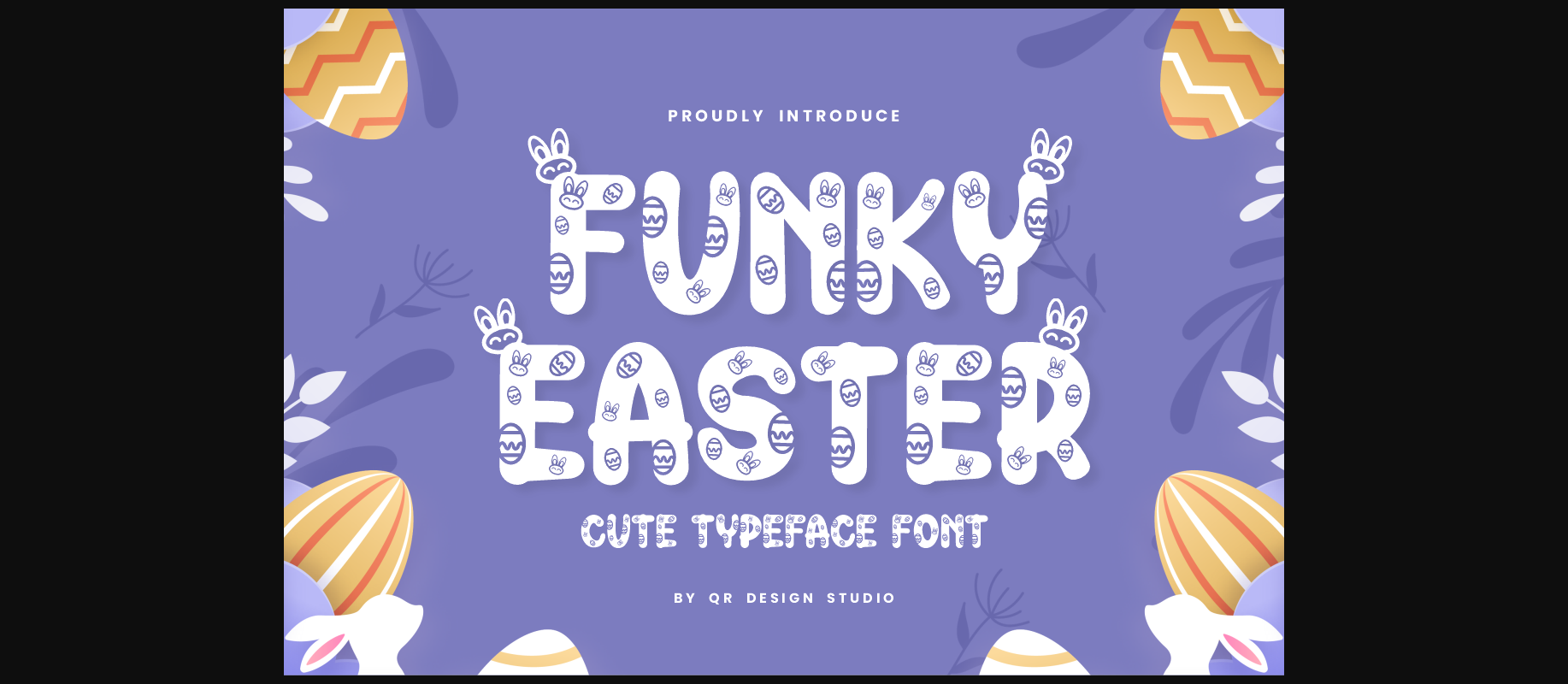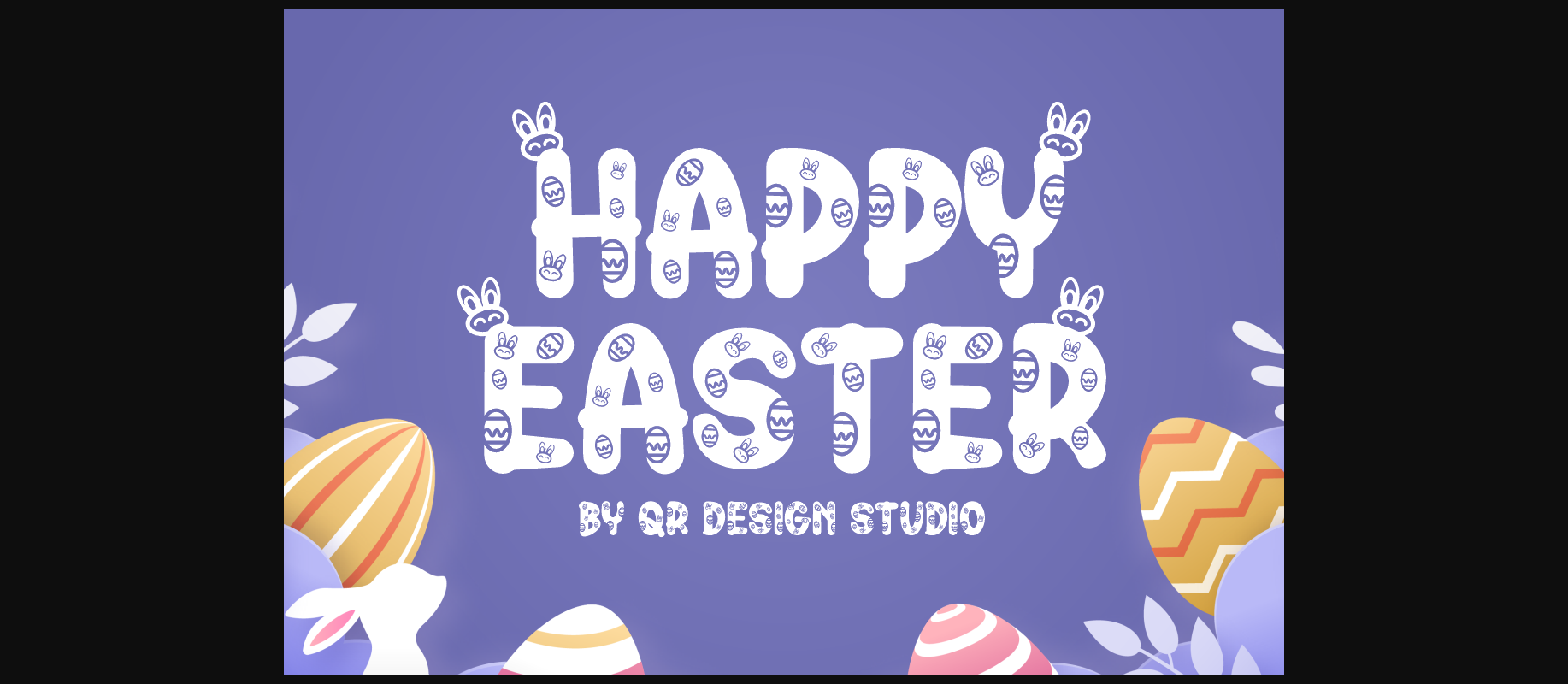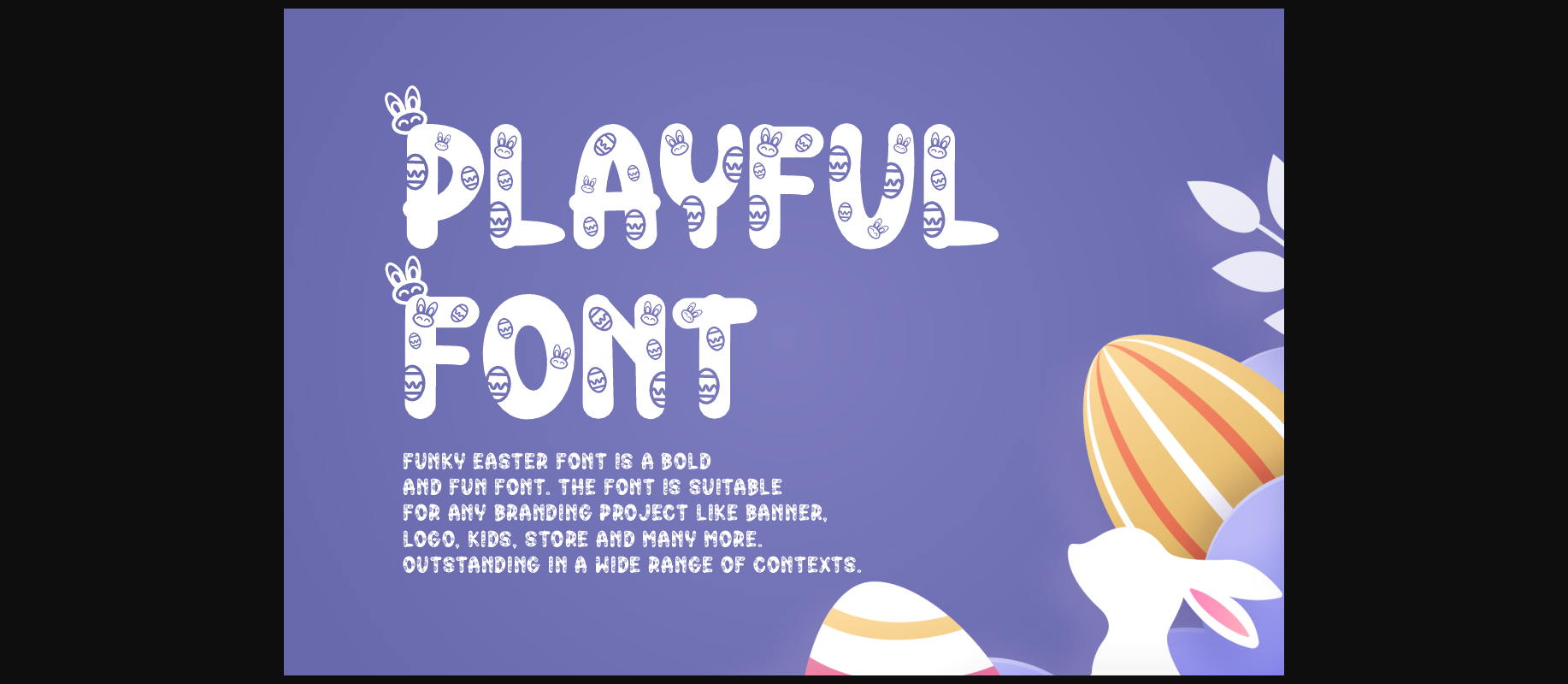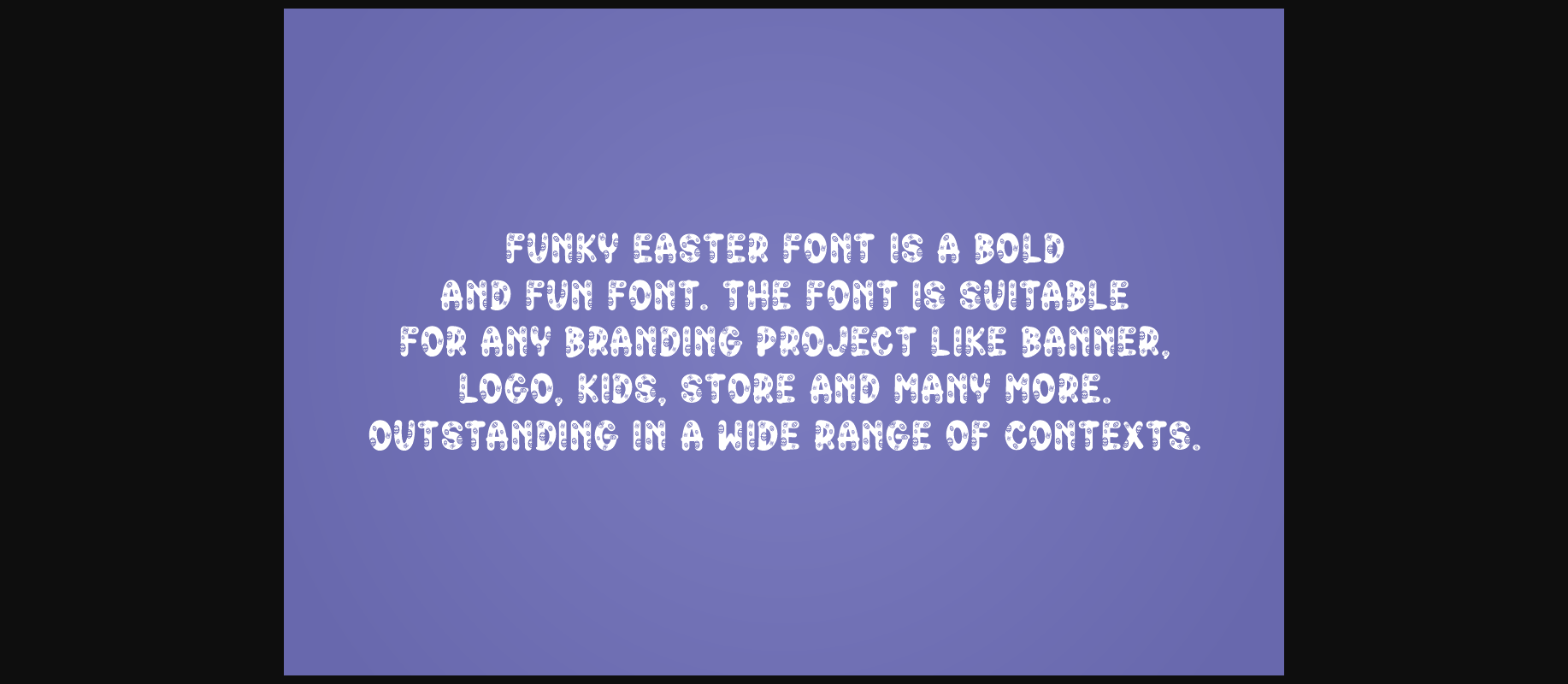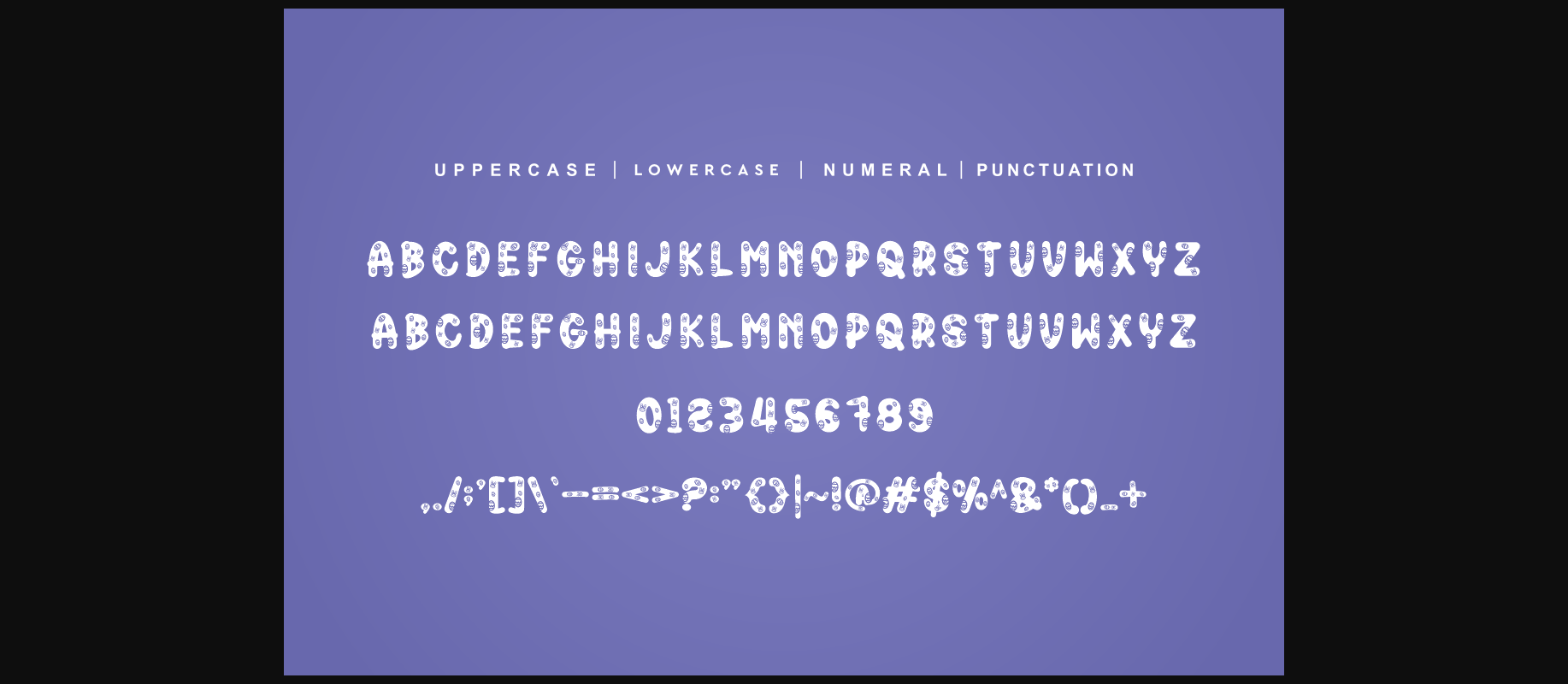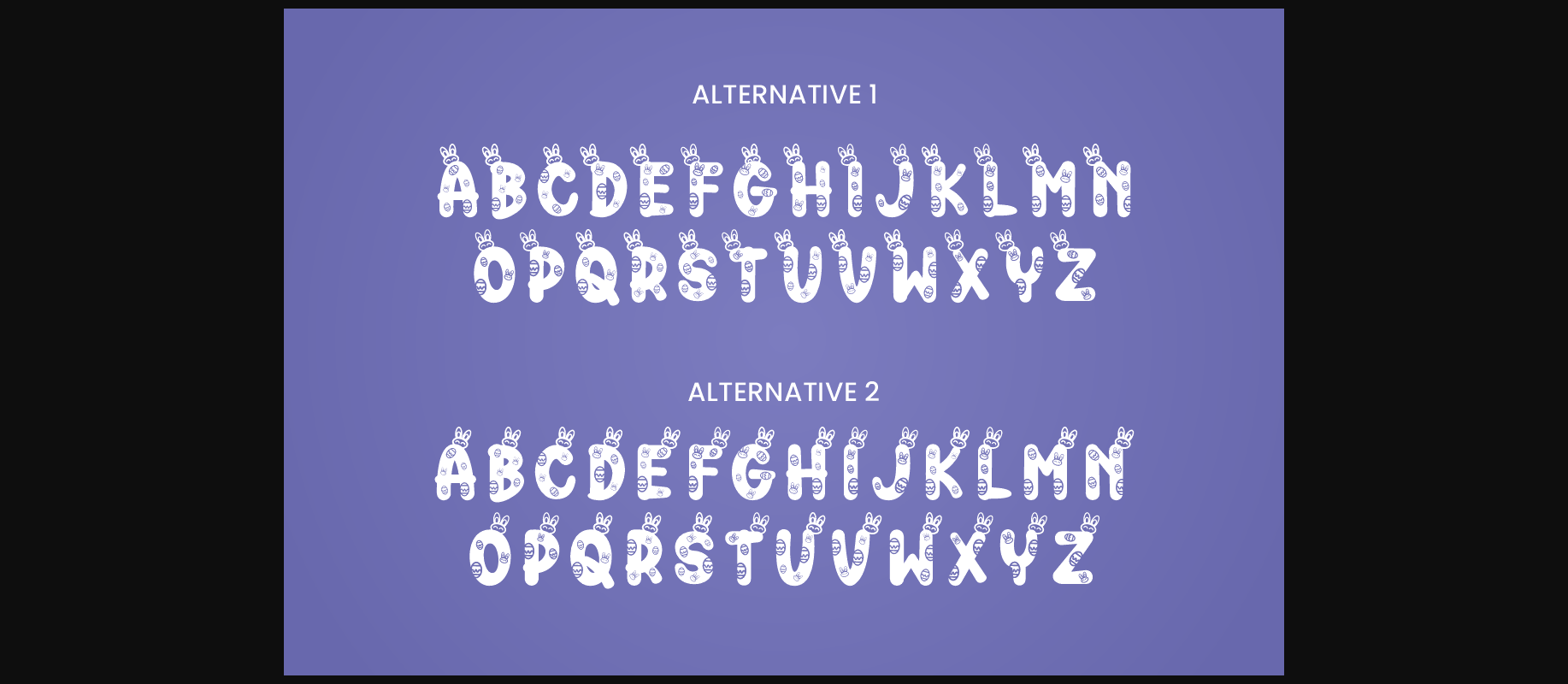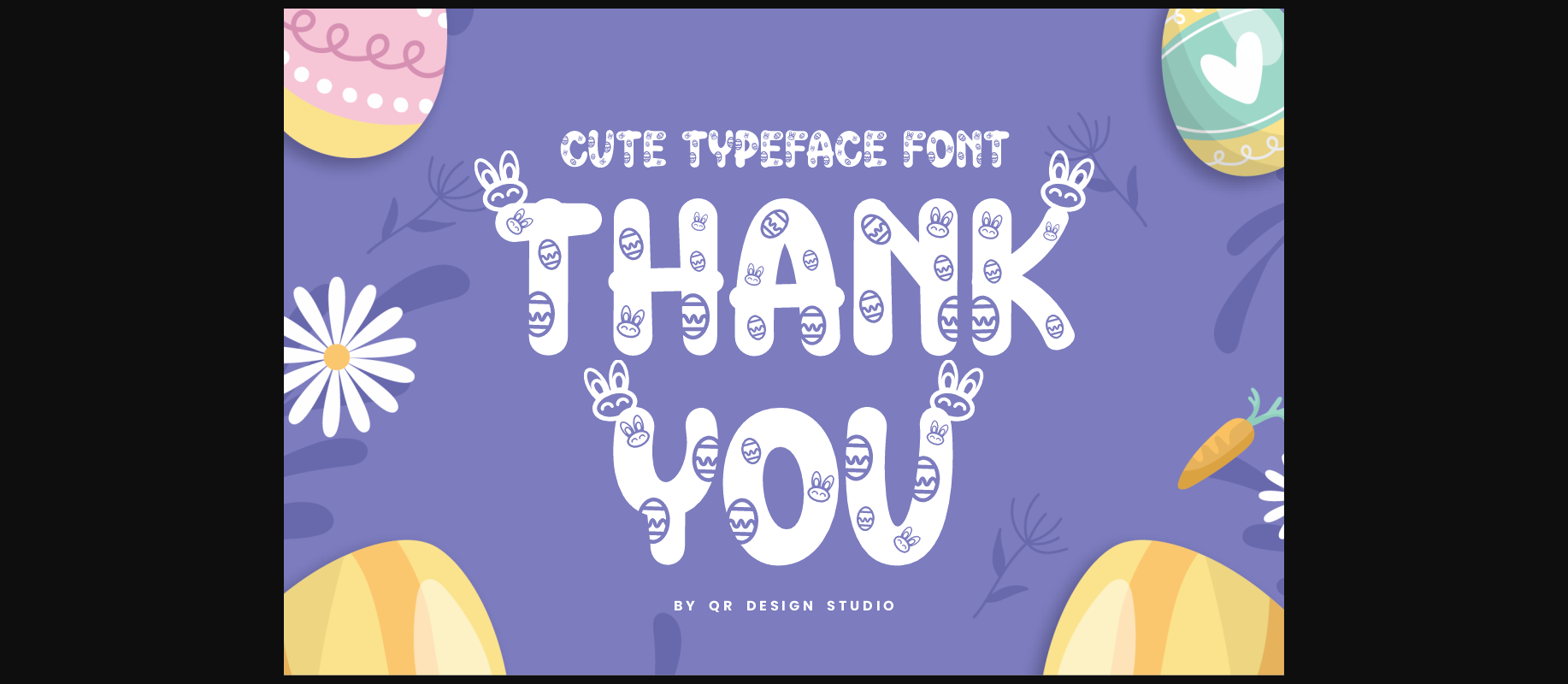
HomeDecorative FontsFunky Easter Font Decorative Fonts Funky Easter Font FacebookXPinterestWhatsApp 1 of 9 ... Funky Easter Font Poster 2... Funky Easter Font Poster 3... Funky Easter Font Poster 4... Funky Easter Font Poster 5... Funky Easter Font Poster 6... Funky Easter Font Poster 7... Funky Easter Font Poster 8... Funky Easter Font Poster 9... About Funky Easter Font Funky Easter is a cute and festive decorative font. Add it to your Spring and Easter-themed ideas and you will love the results! DOWNLOAD NOW People also explored Michiana Pro Sundayenjoy Font Barthley Font Child Pencila Font Lighting Start Font Dulcian Tangerine Font Honest Font Woman Beauty Font 414 0 TagsFunky Easter Font Previous articleHello Butterfly Monogram FontNext articleSpring Flowers Font LEAVE A REPLY Cancel reply Comment: Please enter your comment! Name:* Please enter your name here Email:* You have entered an incorrect email address! Please enter your email address here Website: Save my name, email, and website in this browser for the next time I comment. Personal Use Free Playground Clip Art Personal Use Free Read more about this font Gila Personal Use Free Read more about this font New Normal Personal Use Free Read more about this font Cheque Personal Use Free Read more about this font BLOG Top 7 Google Fonts Alternatives for Faster and Privacy-Friendly Web Design (2025) Top 7 Google Fonts Alternatives for Faster and Privacy-Friendly Web Design (2025) When it comes to web typography, Google Fonts has long been the go-to... Fonts That Capture the Spirit of New York City Using Fonts in Digital Marketing: Tips to Strengthen Your Brand Identity Transform Your Website: Elevate Your Typography with 7 Best Web Font Generators